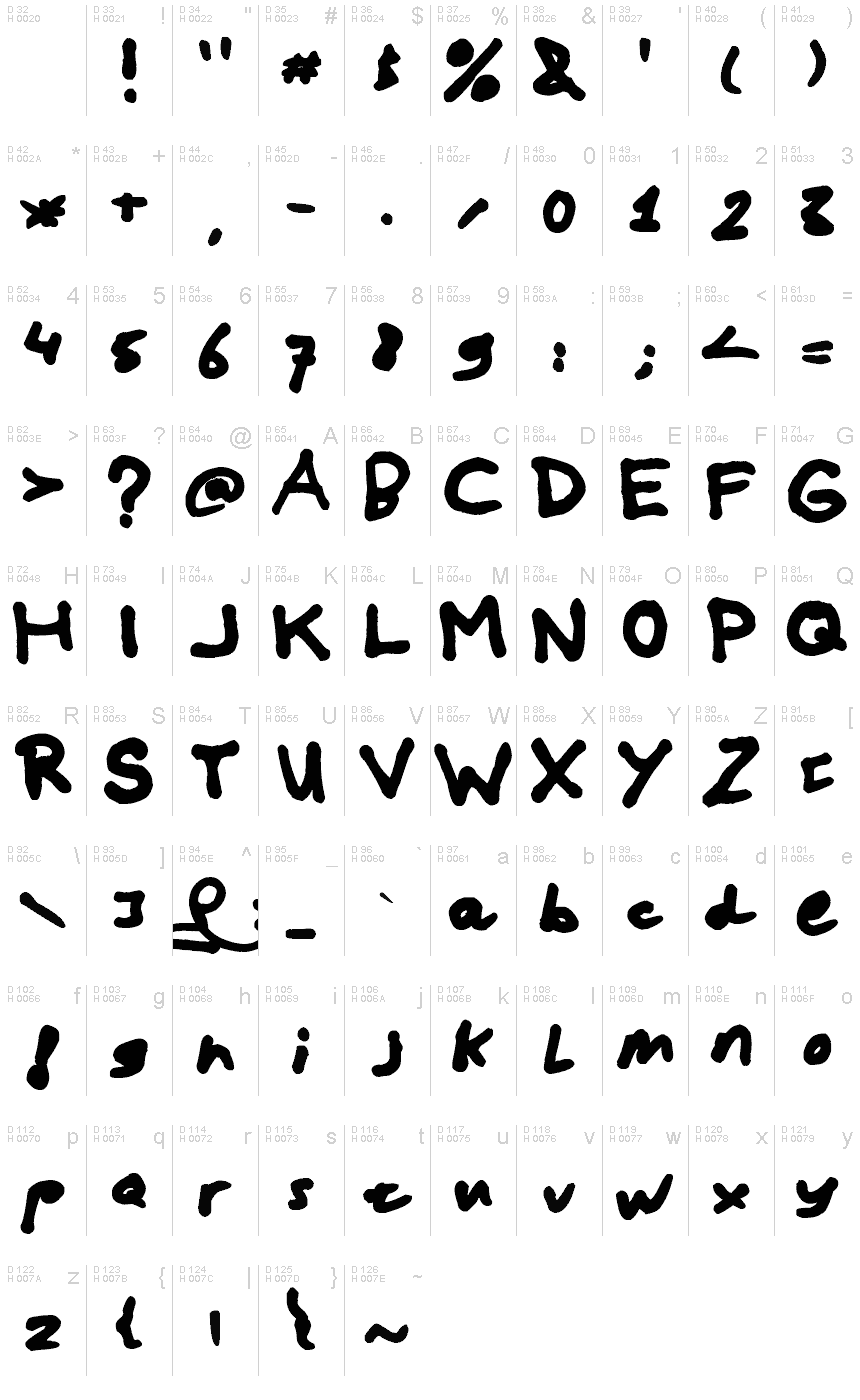
Mockup
Mockup, a handwritten font crafted by FontPanda.com, exudes a captivating blend of spontaneity and sophistication. Its bold, organic strokes and varied character shapes lend an authentic, handcrafted feel to any design. The font's versatility shines through, seamlessly transitioning from playful headlines to elegant body copy. Its unique personality can elevate a wide range of creative projects, from branding and packaging to editorial layouts and social media graphics.
Mockup's expressive, yet legible, qualities make it an excellent choice for designers seeking to infuse their work with a touch of artisanal charm and personal flair.